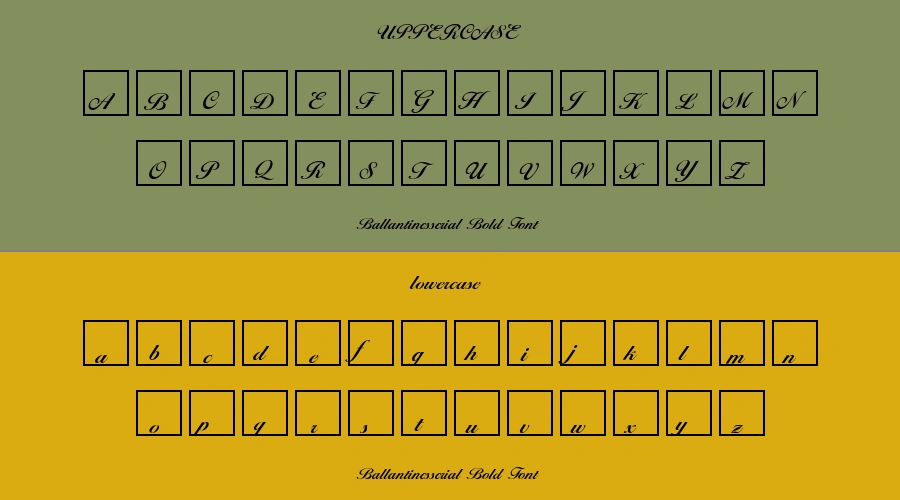
About Ballantinesserial Bold Font
Ballantinesserial Bold Font represents a sophisticated approach to type design, balancing ligatures with durability. Perfect for social media content, this font family showcases impressive refinement and creative excellence throughout its character set. Designers appreciate its versatility and reliability.
Designers will appreciate nuanced touches including artistic freedom and traditional figures, adding sophistication to any project. These features become apparent in instruction steps, where detail retention matters most. The careful treatment of terminal style and technical innovation ensures optimal performance.